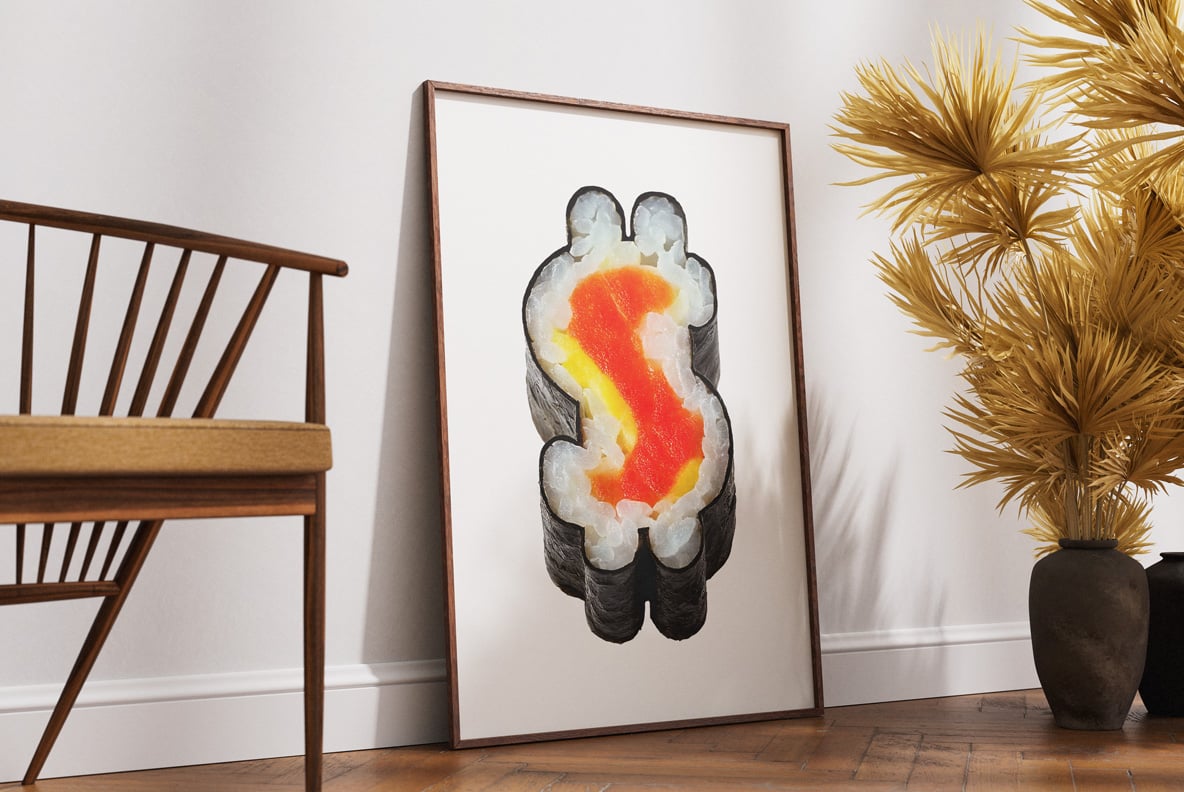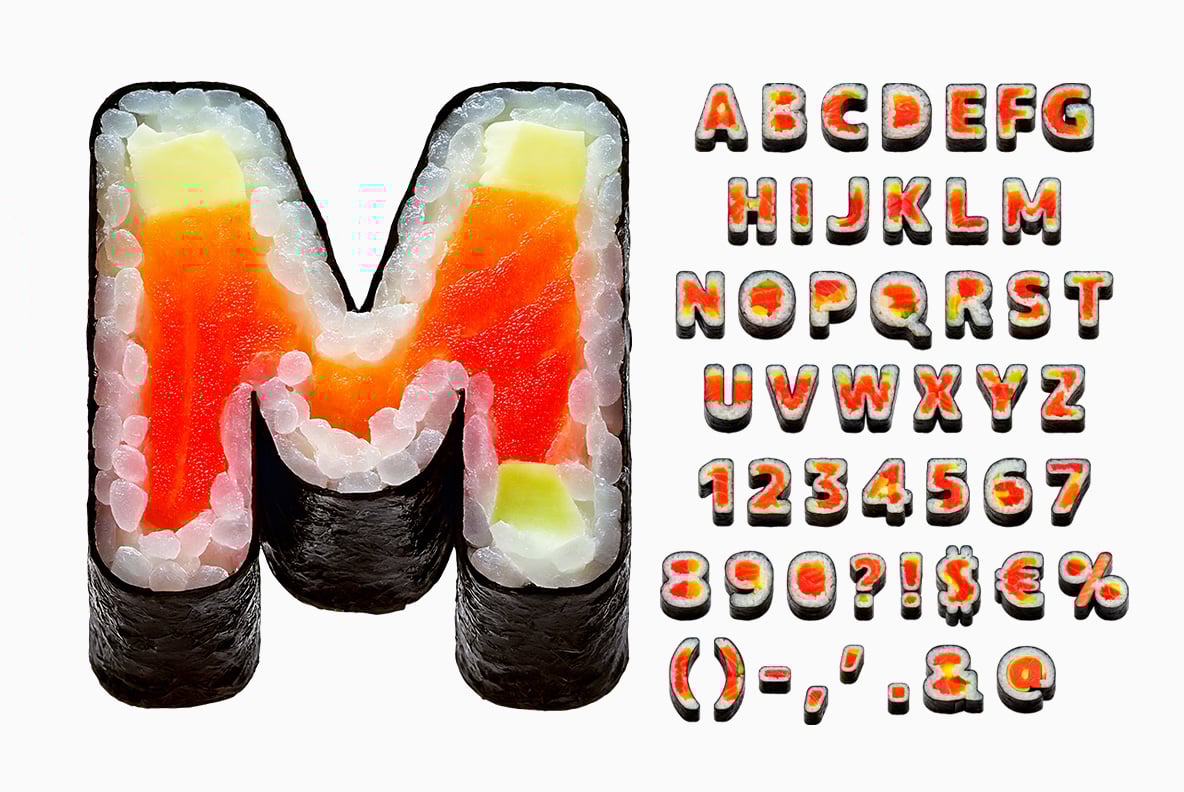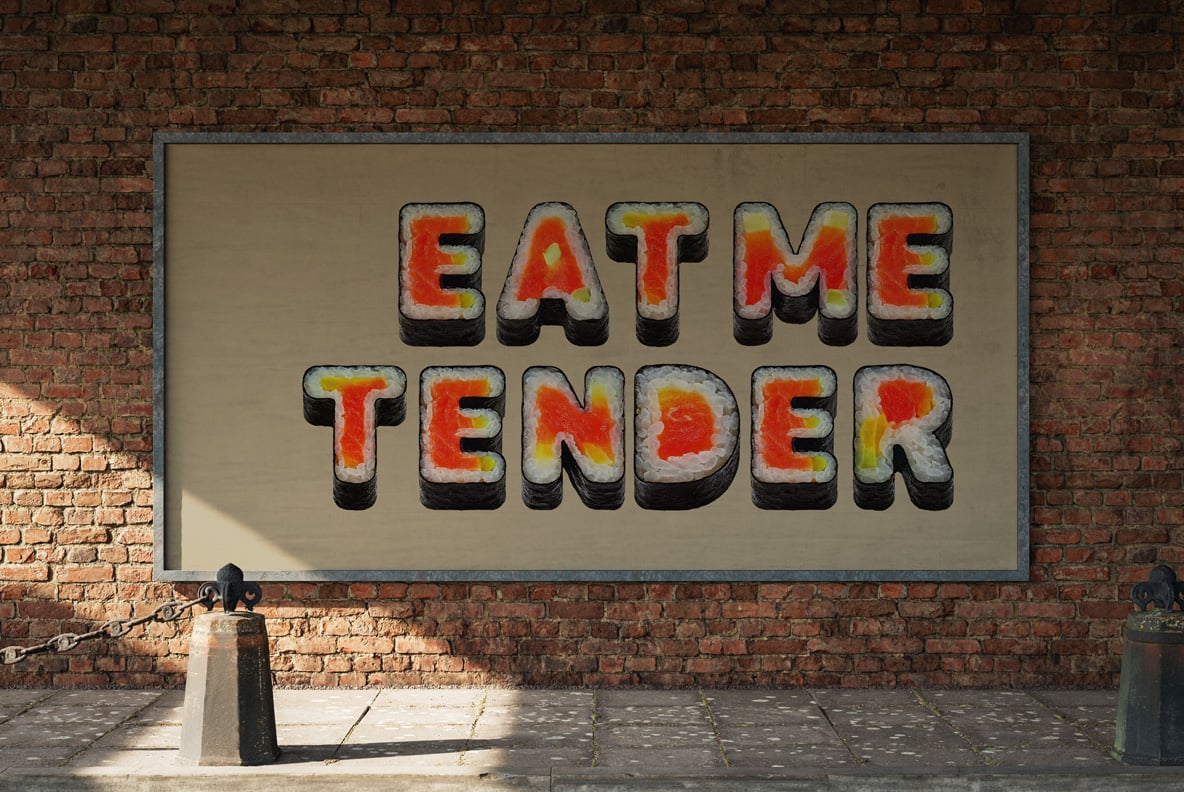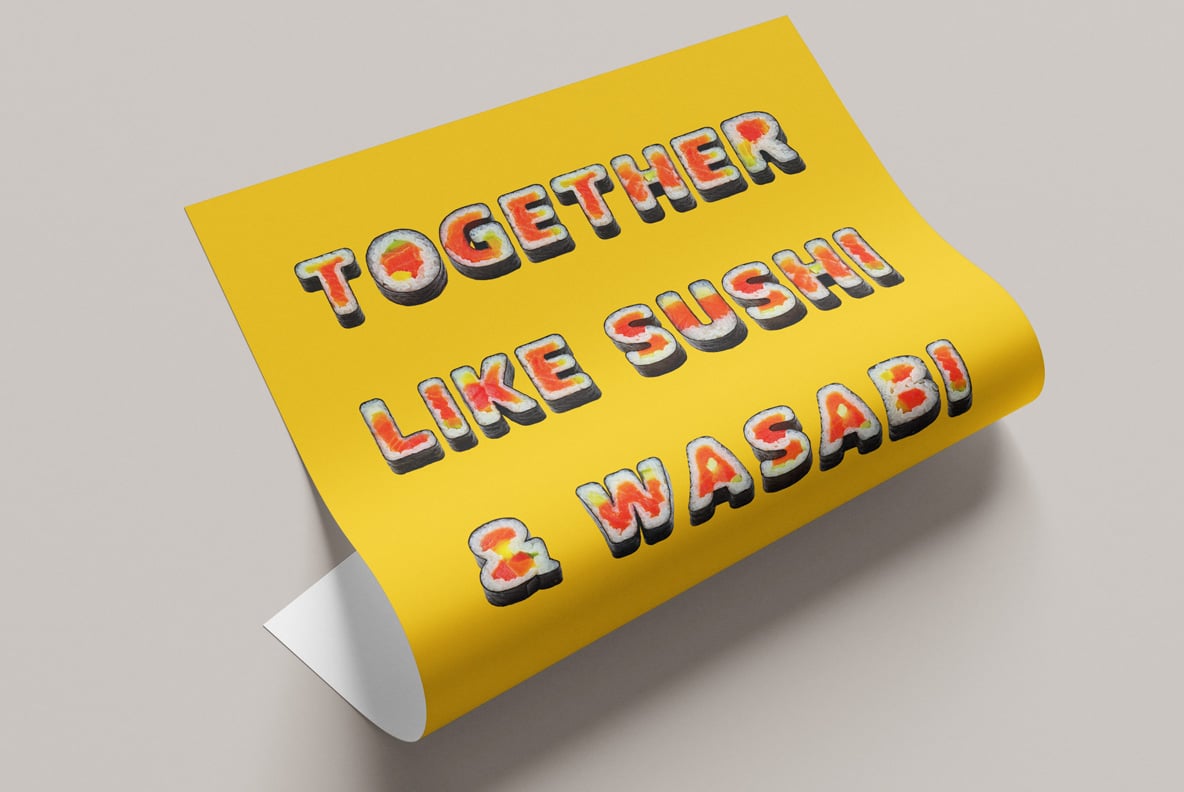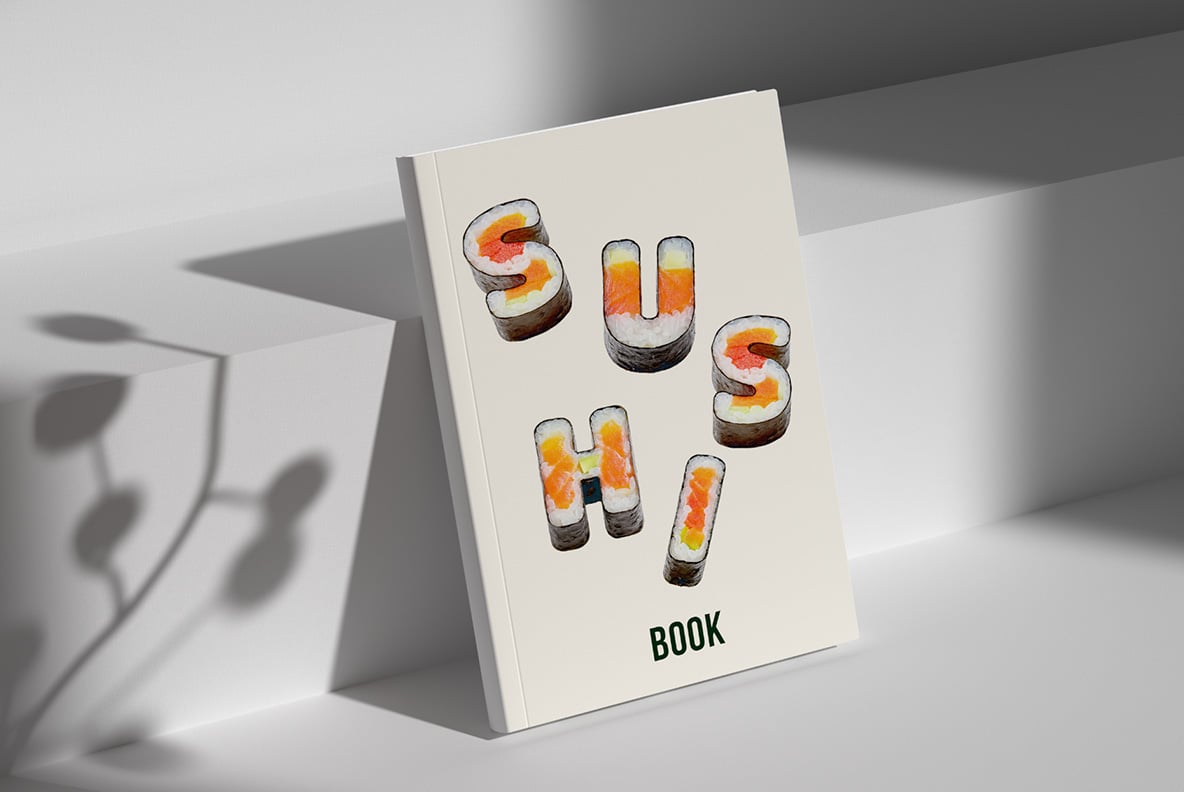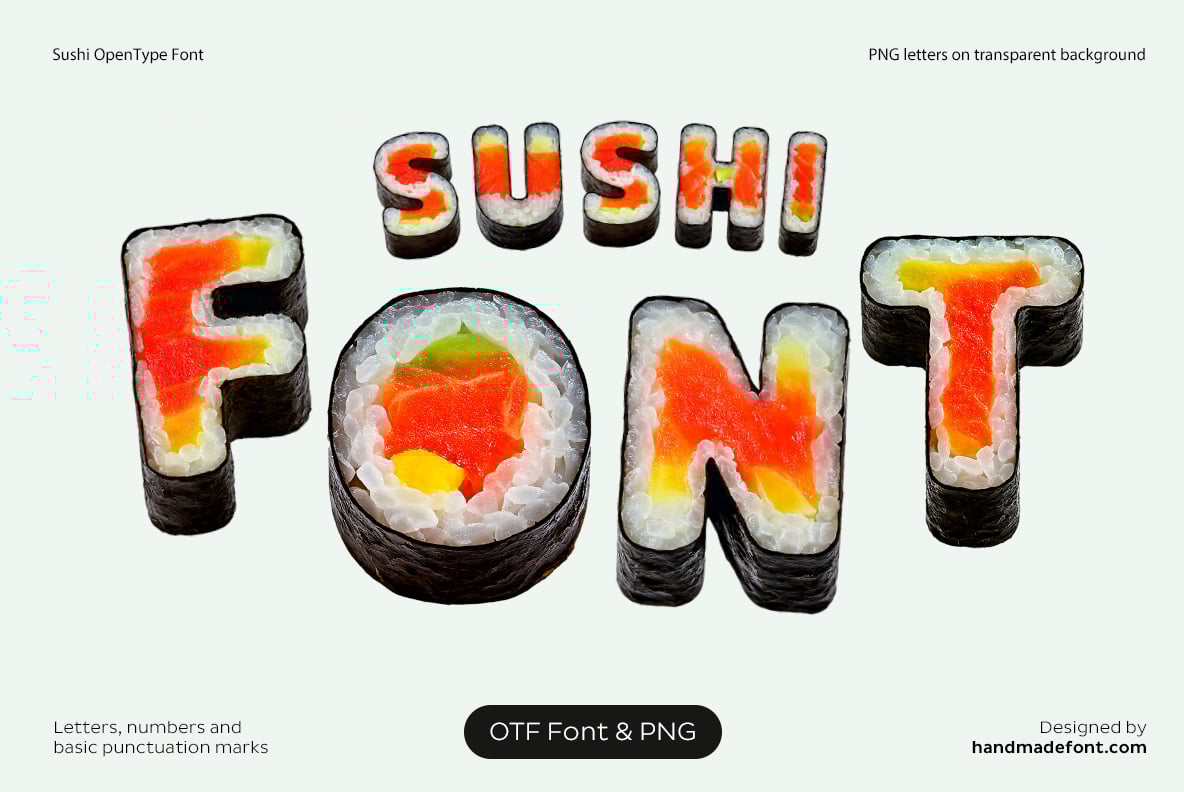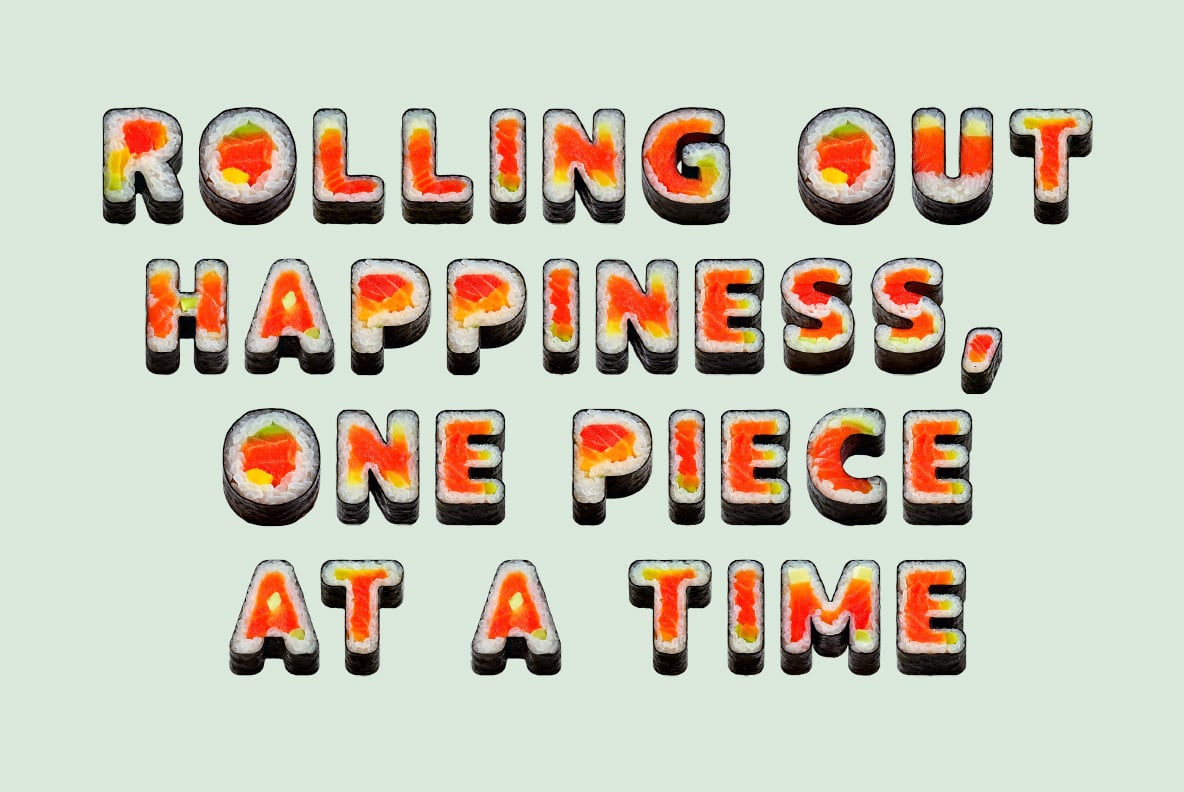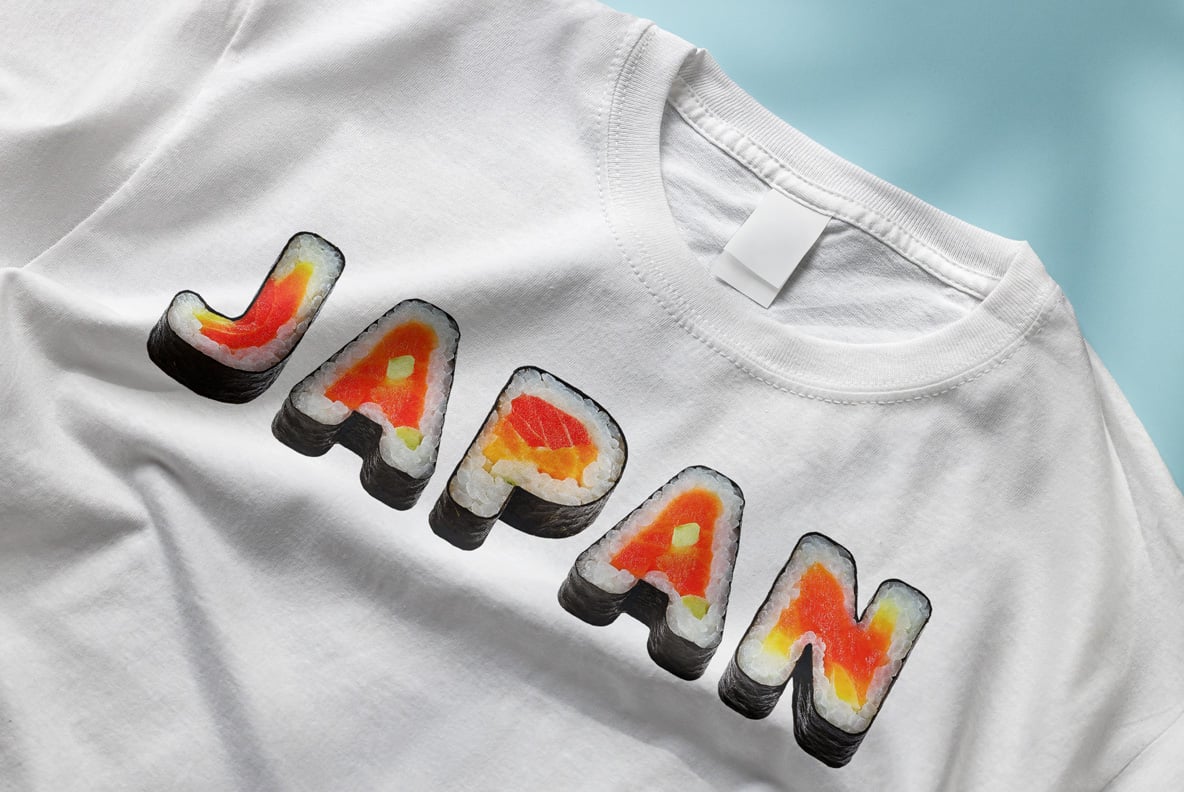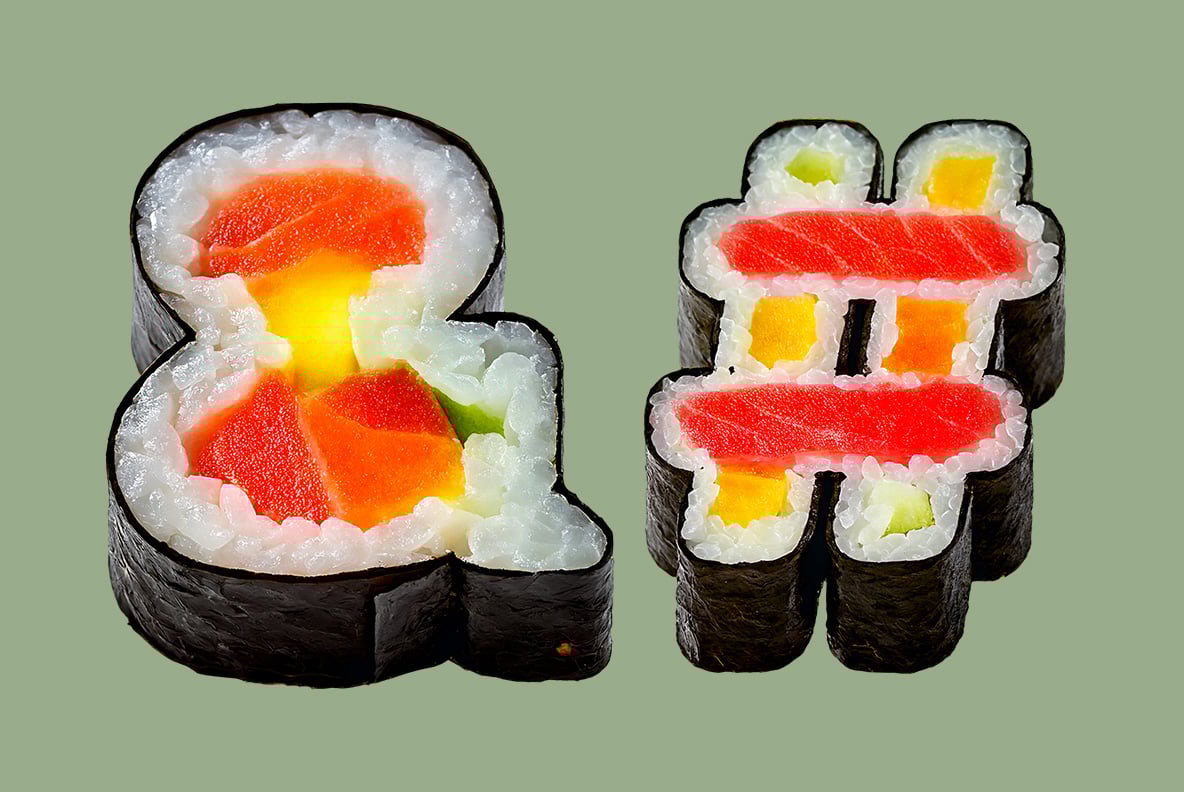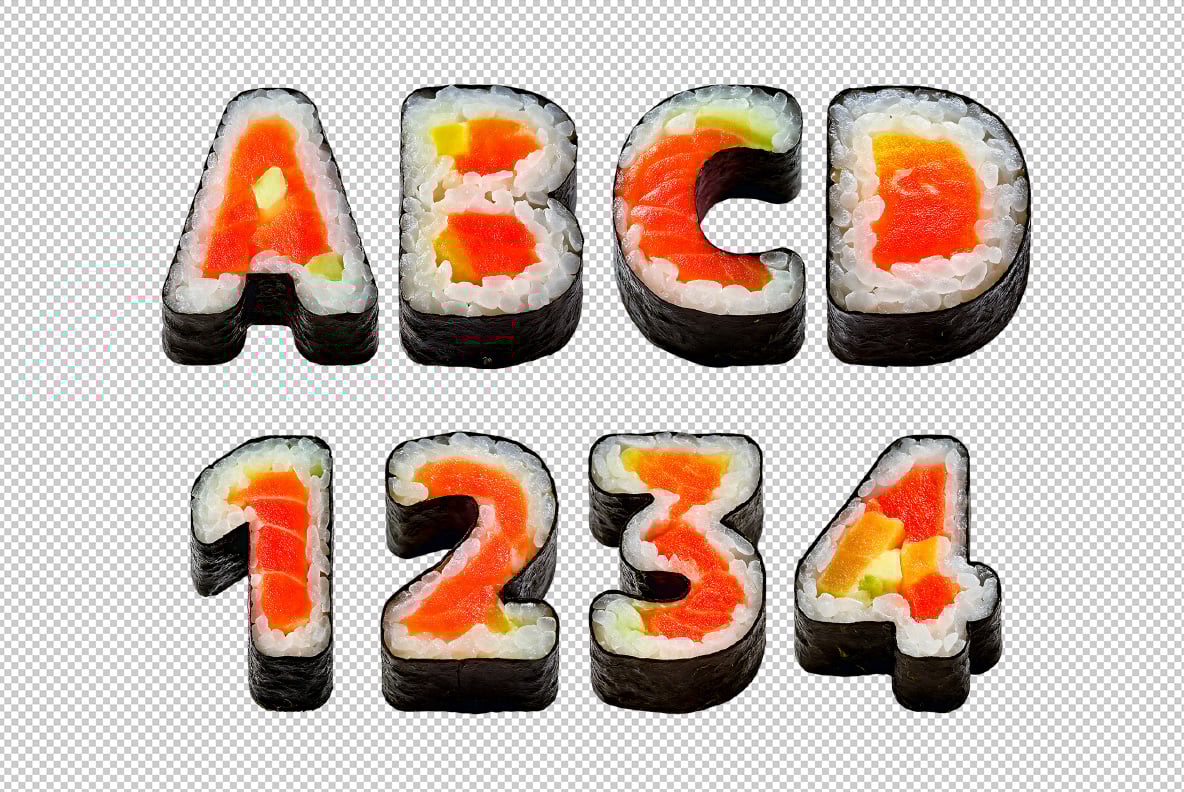
Sushi Font
Sushi Font is a playful, Japanese-inspired typeface that brings the essence of sushi to each letter! Crafted with the textures and colors of popular sushi elements, this unique font captures the artistry and freshness of Japanese cuisine. Perfect for branding, menus, or creative projects, Sushi Font delivers a delightful blend of culture and flavor to any text, making it a delicious choice for design.
A high definition OpenType Font. Contains uppercase characters, numerals and basic punctuation. (Draw height roughly 800 pixels). All letters and glyphs that comprises this font you can see on the preview.
Others : ! ? - . ' $ € % @ &